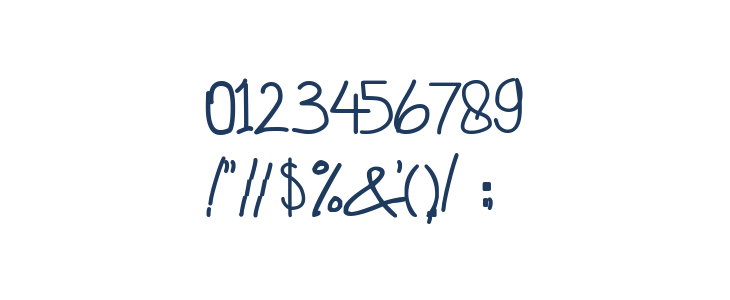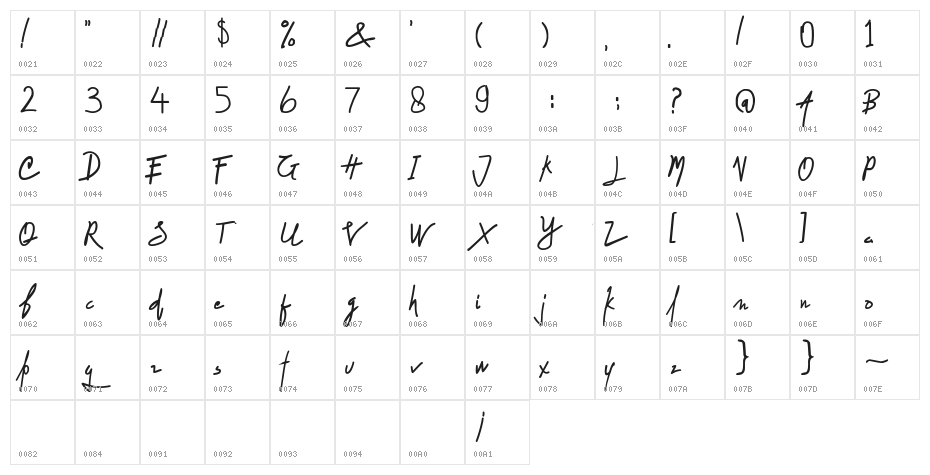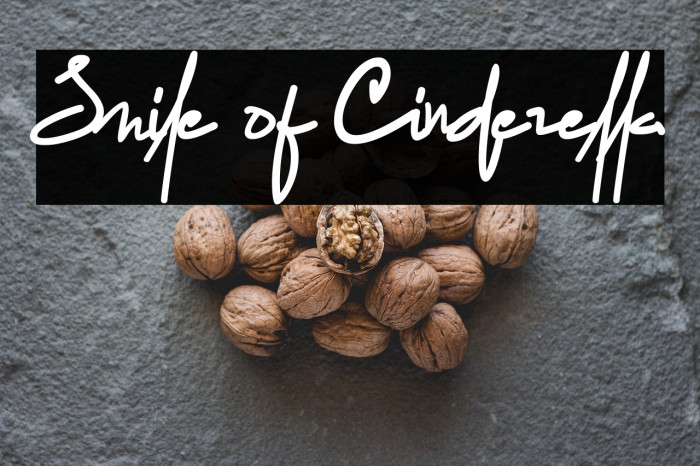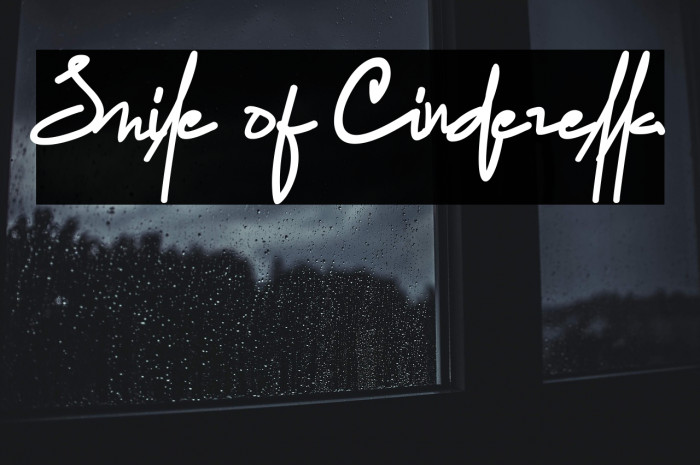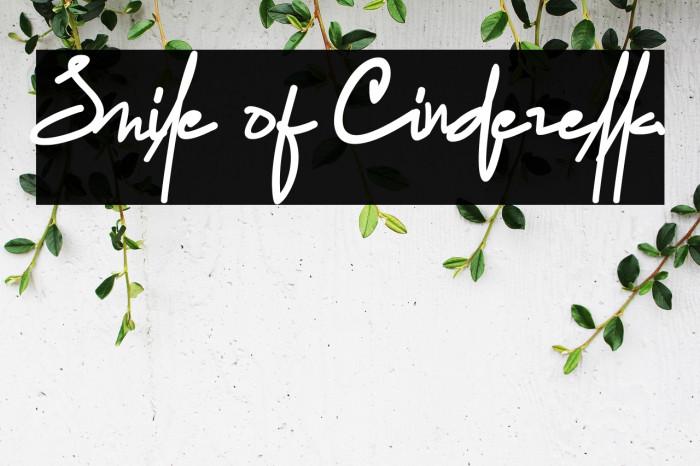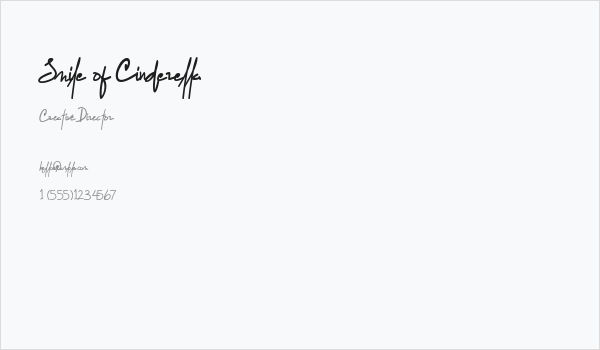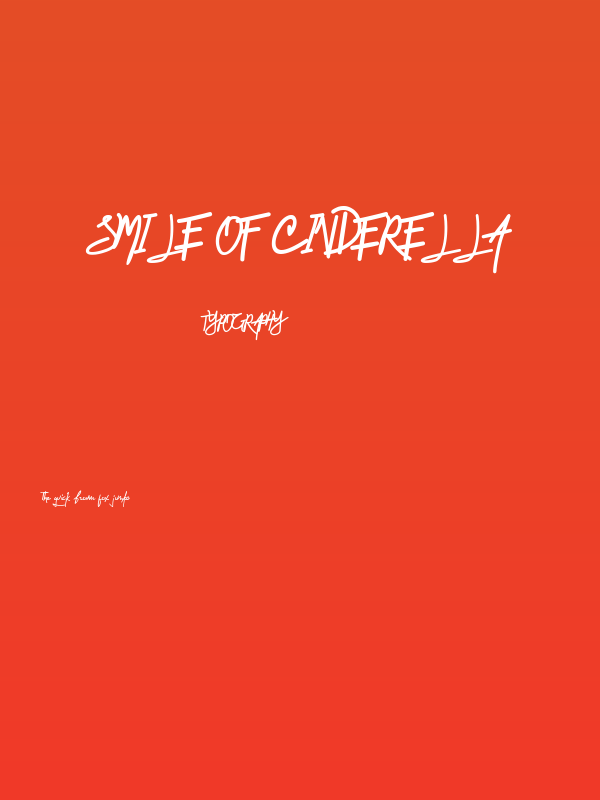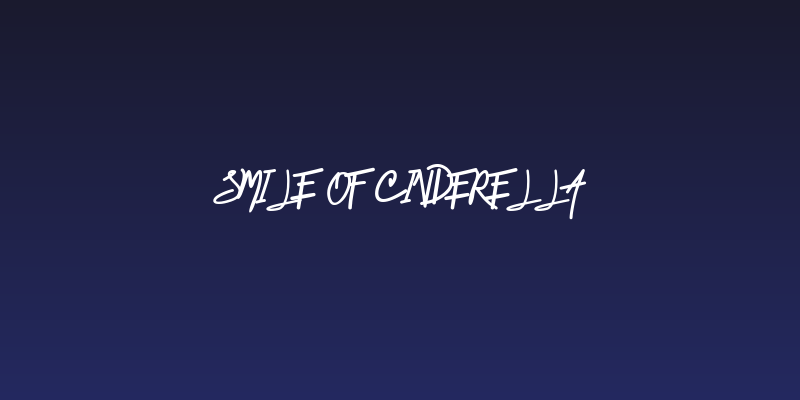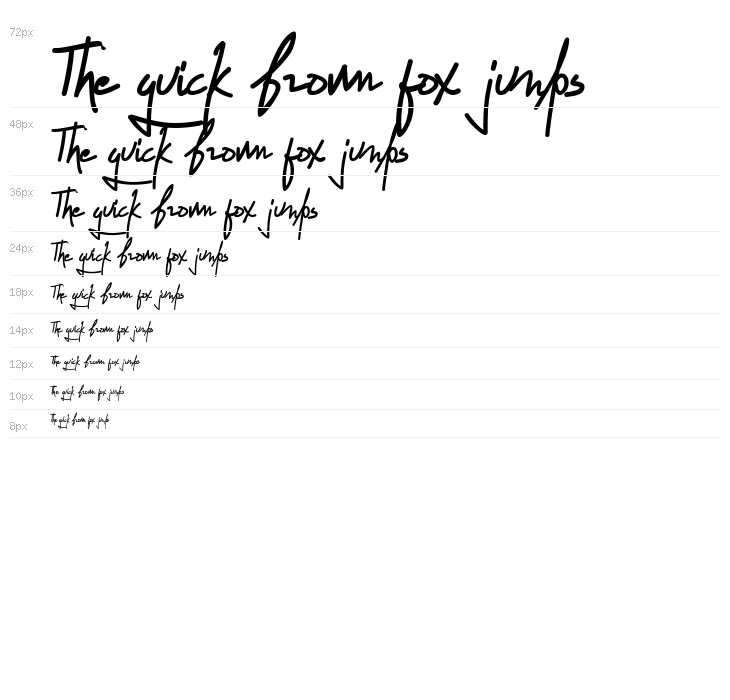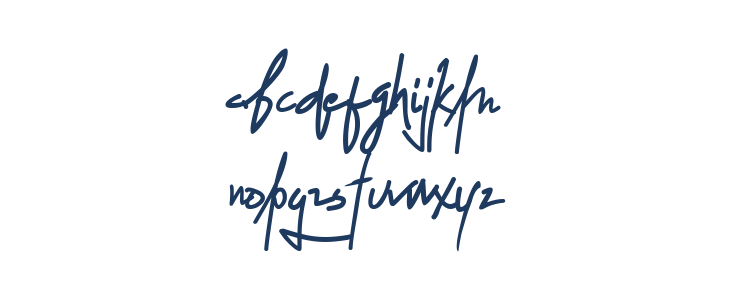
Smile of Cinderella Font
Smile of Cinderella Description
This font exudes a lively and dynamic energy with its handwritten style, characterized by fluid and slightly irregular strokes that mimic natural handwriting. The uppercase letters are bold and expressive, while the lowercase letters maintain a consistent flow, adding a touch of elegance. The numerals are clear and legible, complementing the overall aesthetic. Special characters are creatively integrated, maintaining the playful yet sophisticated vibe. This font is ideal for projects that require a personal touch, such as invitations, greeting cards, or branding materials that aim to convey warmth and creativity.
| Proposed Projects | Ideal for invitations, greeting cards, and creative branding materials. |